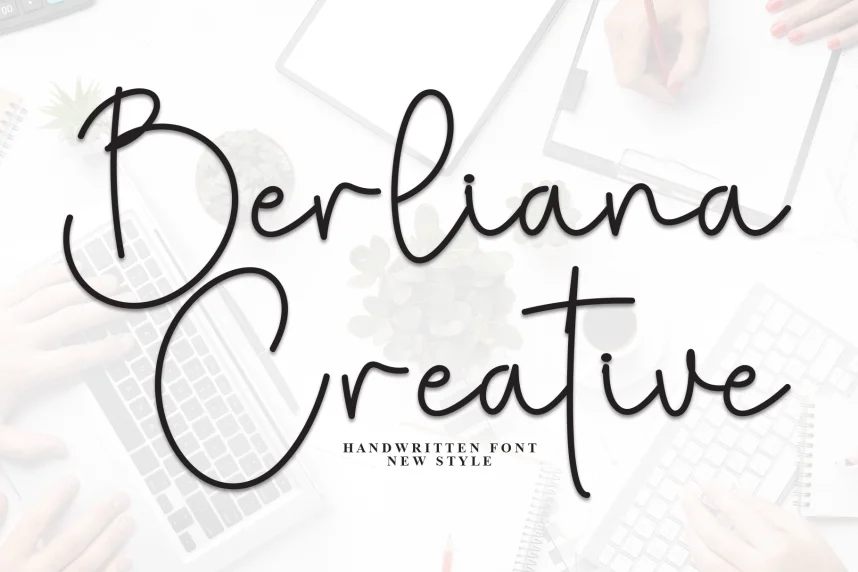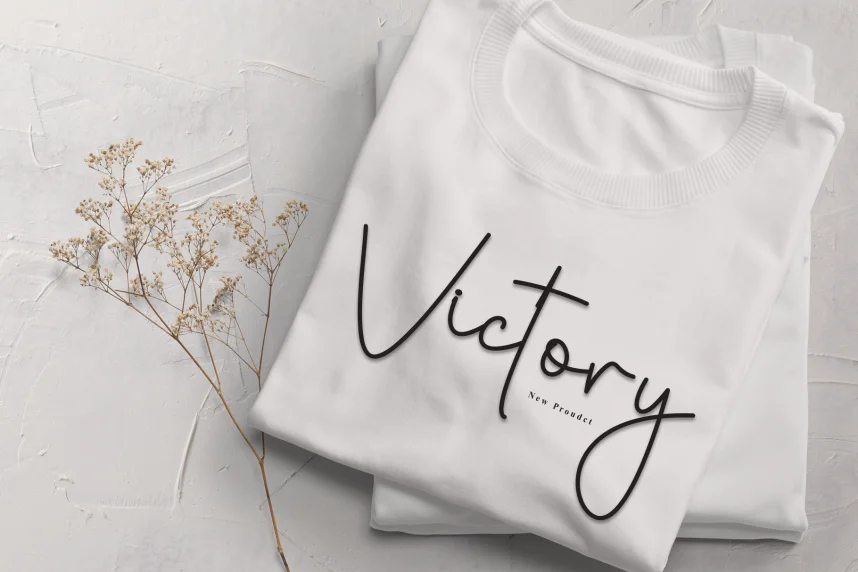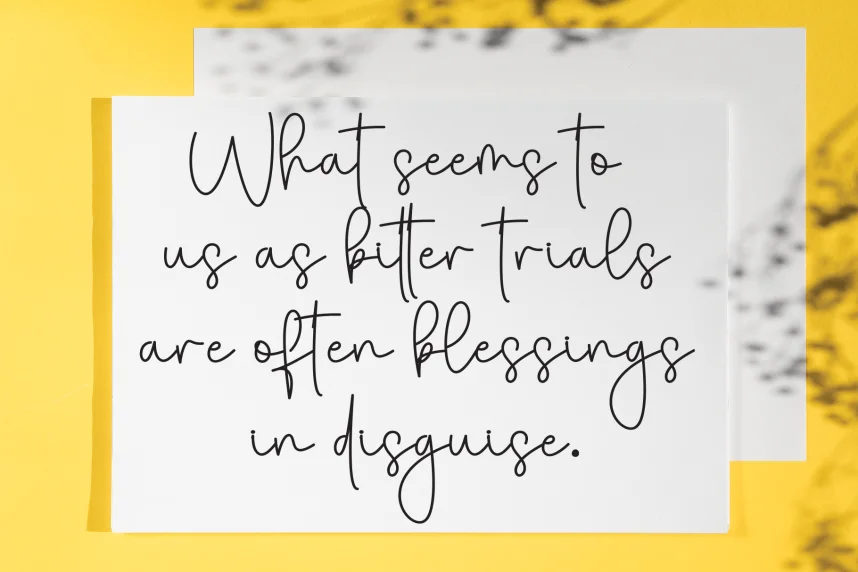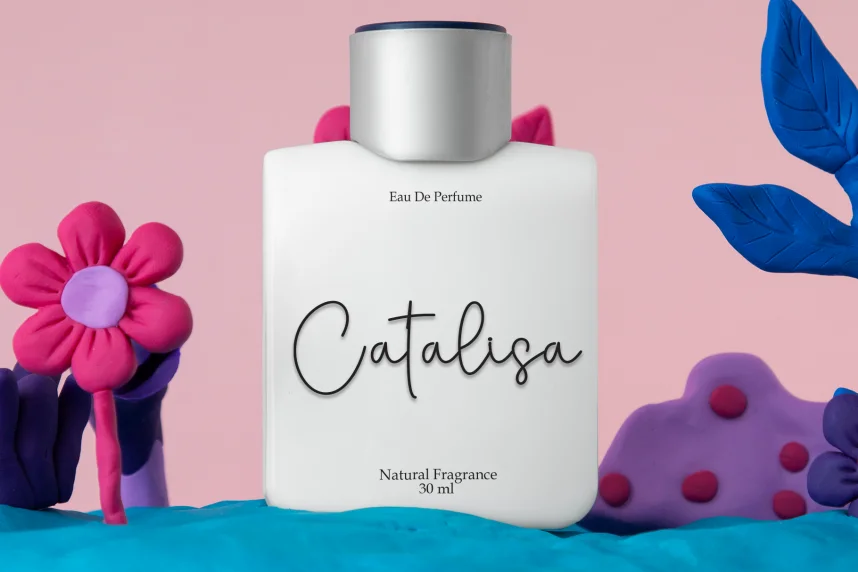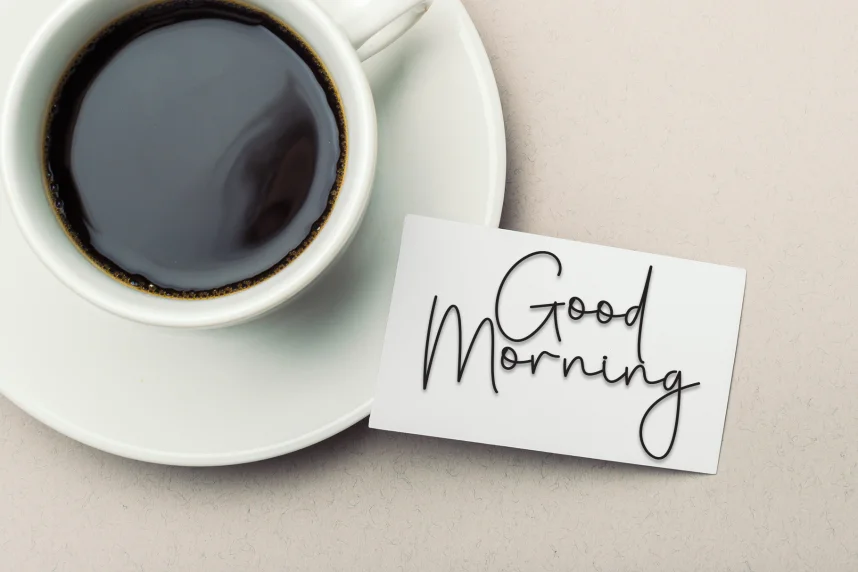
Berliana Creative Simple Handwritten Font helps create a personal yet legible design that works well for professional and casual applications. Its simplicity makes it perfect for adding a personal touch to any project.
Berliana Creative is a handwritten script font featuring light, fluid strokes and consistent spacing. The letterforms are clear and legible, making it suitable for both short and long text in branding and creative projects.